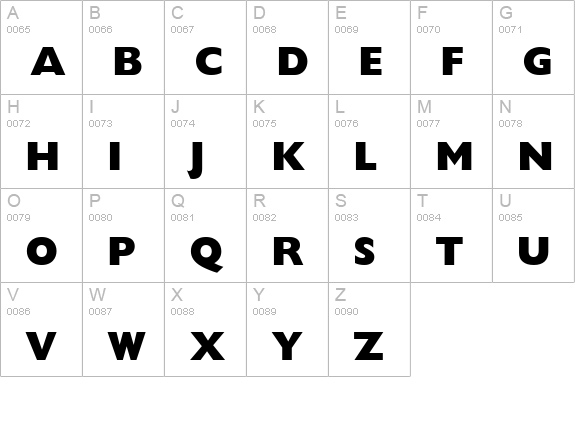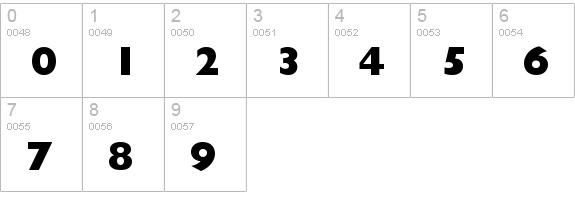
Gill Black SSi Extra Bold Font Details
Gill Black SSi Extra Bold is a maximum-weight, dramatic variant in the Gill typeface family \xE2\x80\x94 well suited to maximum-impact headlines, posters, and packaging.